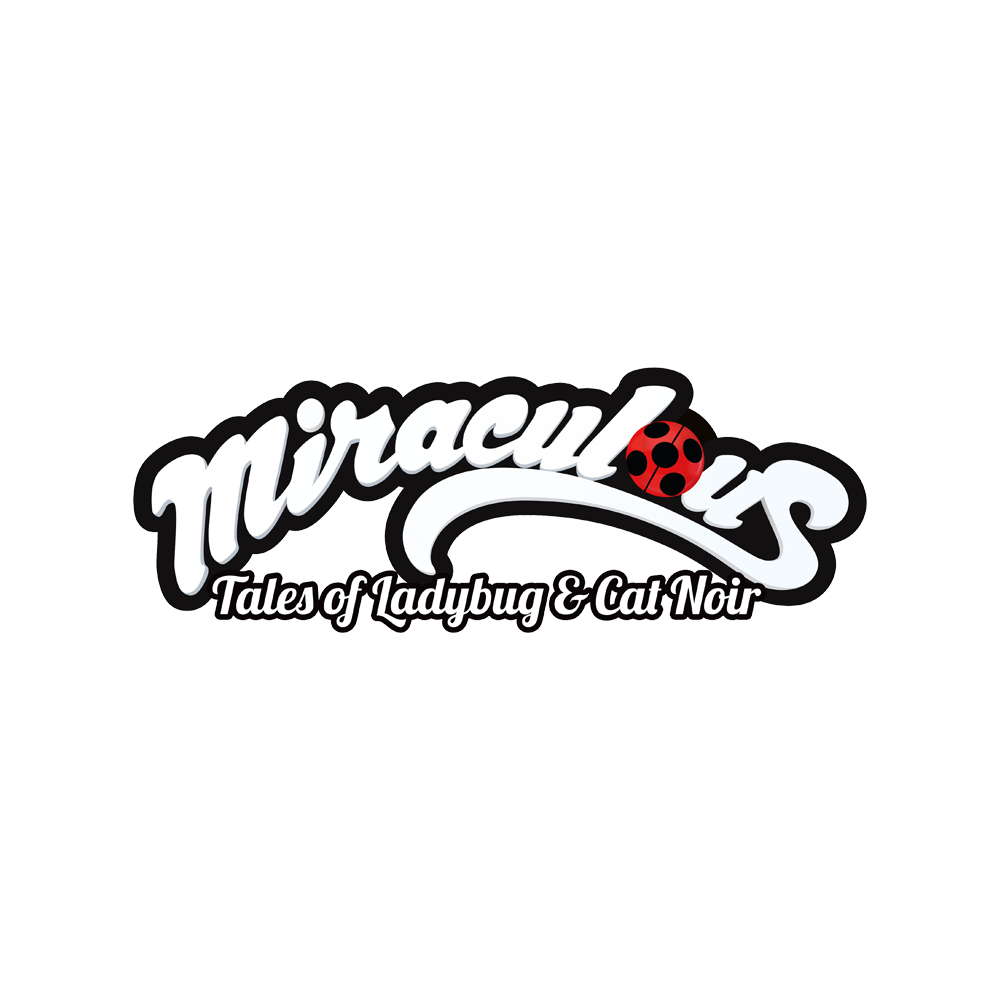
Miraculous Ladybug Font
AnimationMiraculous: Tales of Ladybug & Cat Noir is a French animated television series produced by Zagtoon and Method Animation. The show follows two teenagers, Marinette Dupain-Cheng and Adrien Agreste, who transform into the superheroes Ladybug and Cat Noir, respectively, to protect Paris from supervillains.
The movie title seems to use two fonts; the “Tales of Ladybug & Cat Noir” part is set in a condensed font named Lobster, designed by Pablo Impallari, and the “Miraculous” part of the logo looks similar to Chocolate Dealer by Billy Argel. Both fonts are available for free download in the Fonts Used Section.